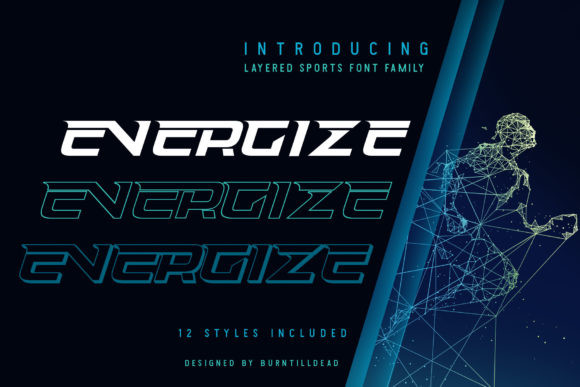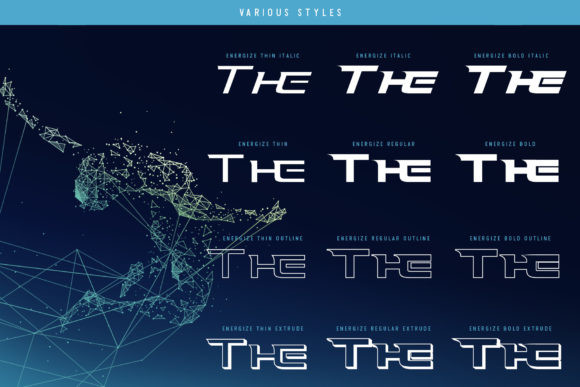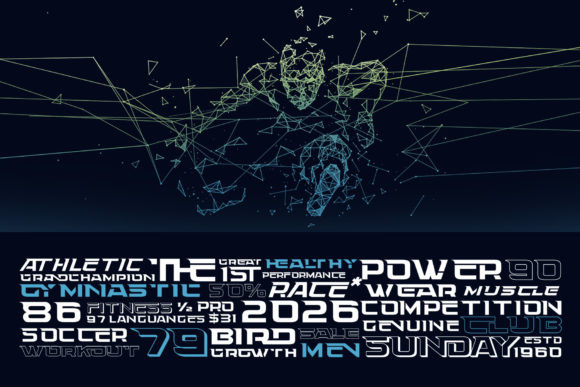
Energize Font
Energize is a cool, bold display font. This font is ideal for any type of design related to speed, racing and competition, so add it confidently and you will love the outcome.